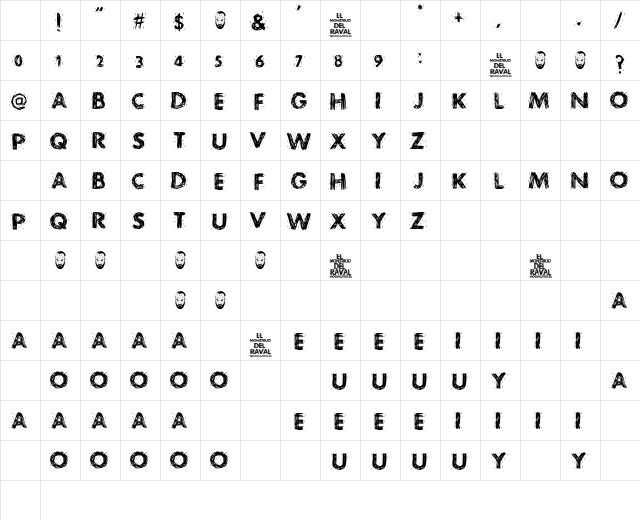
Complete El Monstruo del Raval Regular glyph index. Displaying only characters natively supported by El Monstruo del Raval Regular font.
El Monstruo del Raval is a composed and adaptable typeface that performs quietly and consistently across a wide range of design contexts.